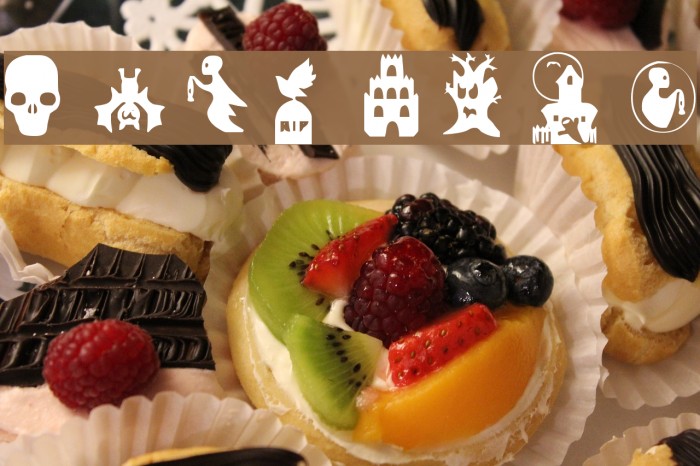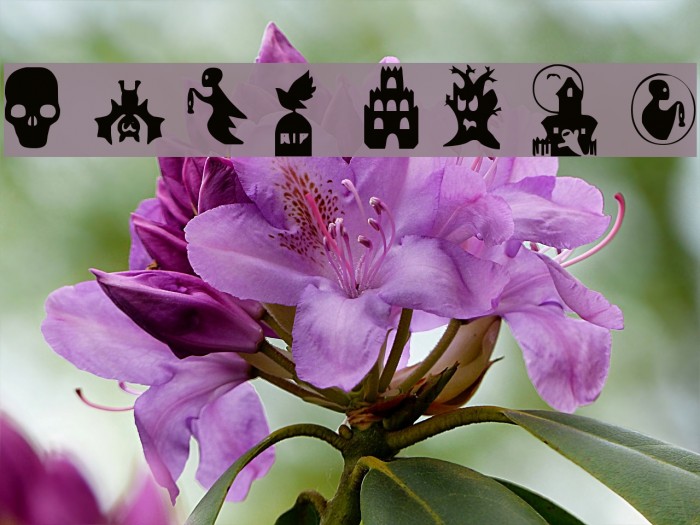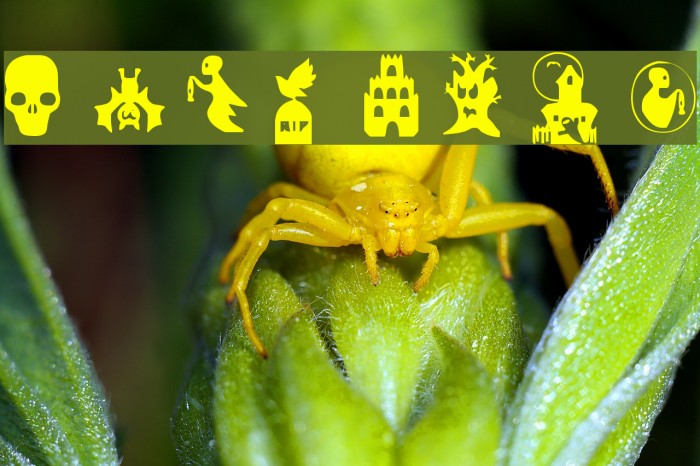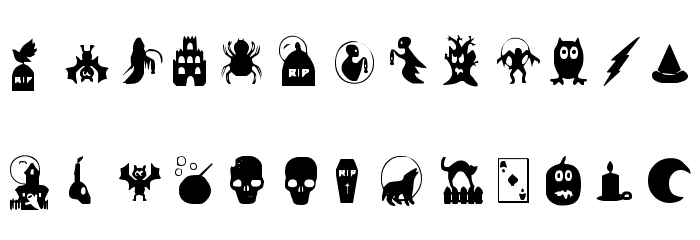
sbhading Font
sbhading Description
A decorative Halloween-themed dingbat font featuring a variety of spooky icons such as ghosts, bats, pumpkins, skulls, witches, and other related imagery. Each character is represented by a unique silhouette illustration, making it ideal for festive and playful designs.
| Overall Style | Decorative, Playful, Thematic |
| Use Case | Decorative icons for seasonal or themed projects. |
| Proposed Projects | Halloween party invitations, event flyers, themed posters, greeting cards, social media graphics, and crafts. |